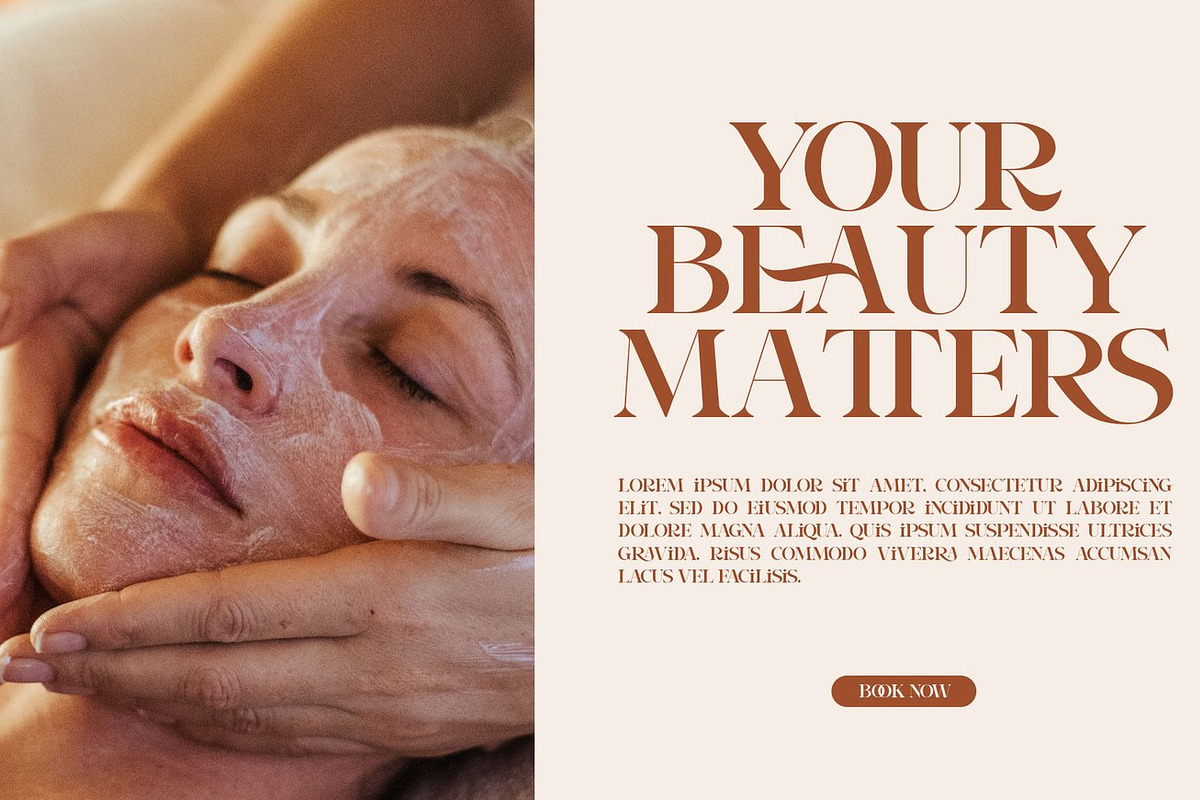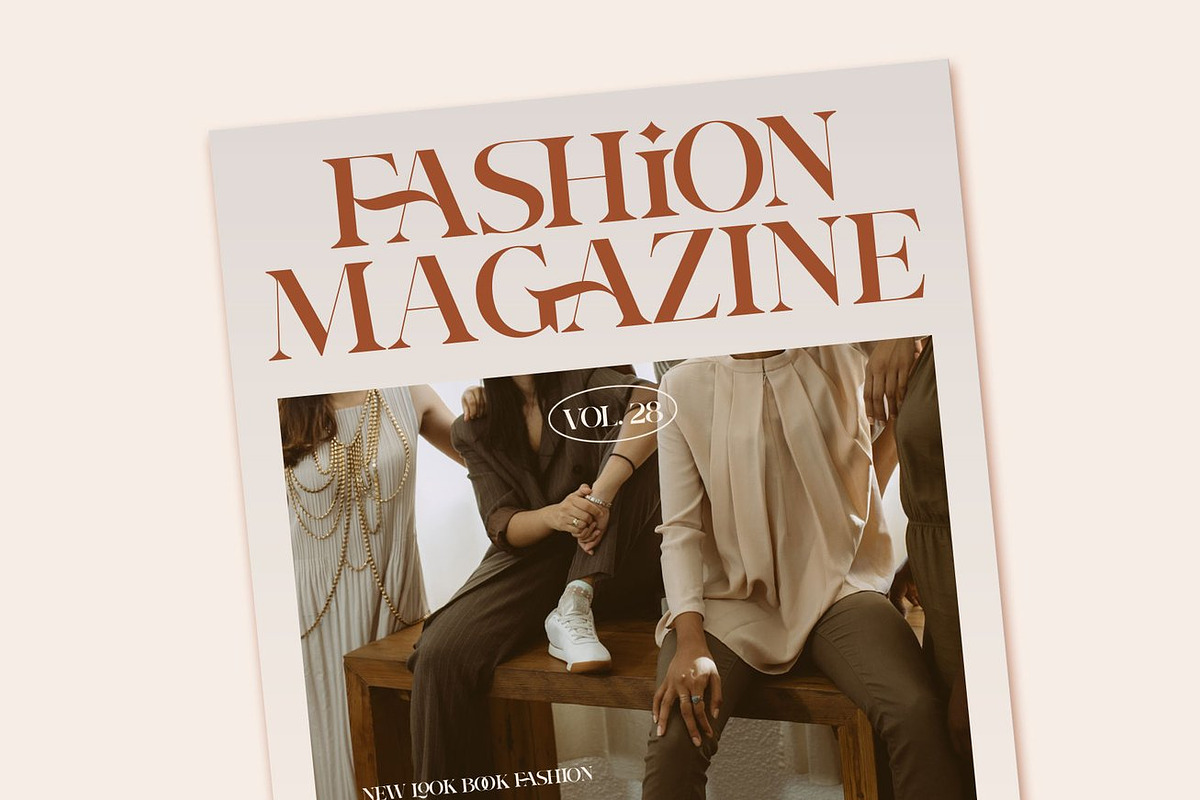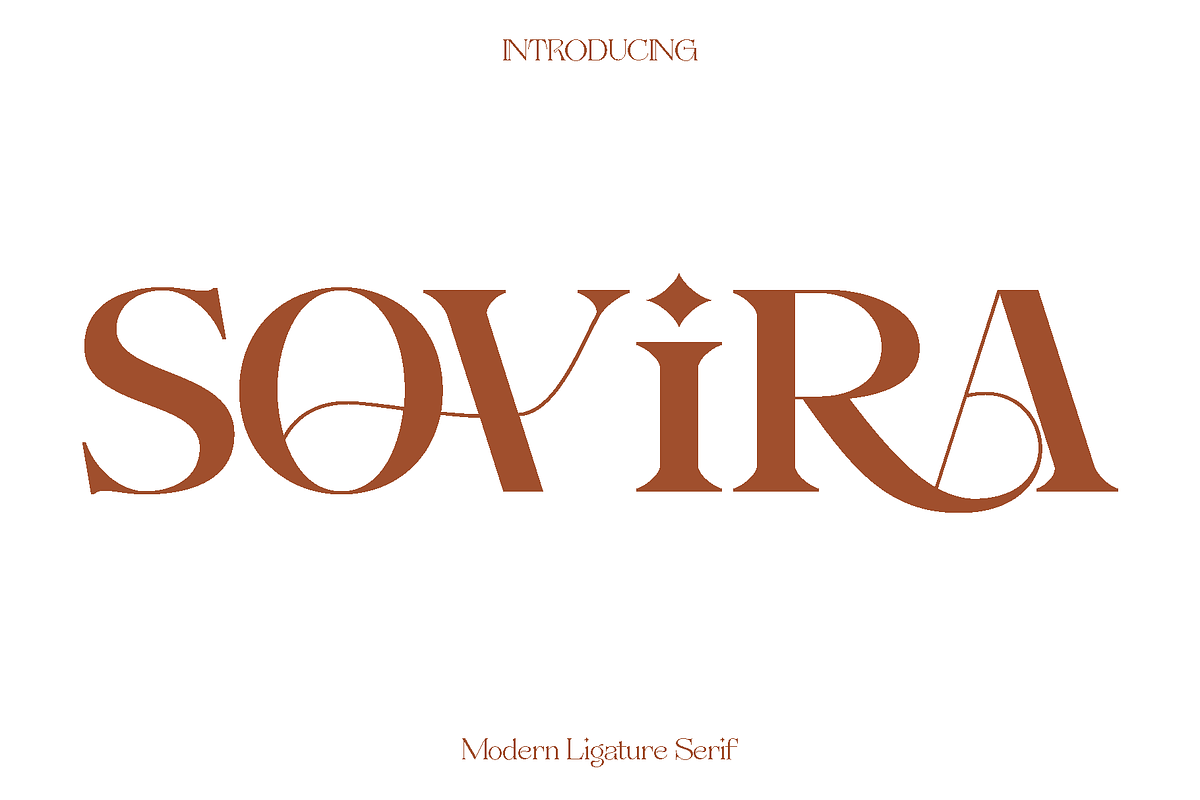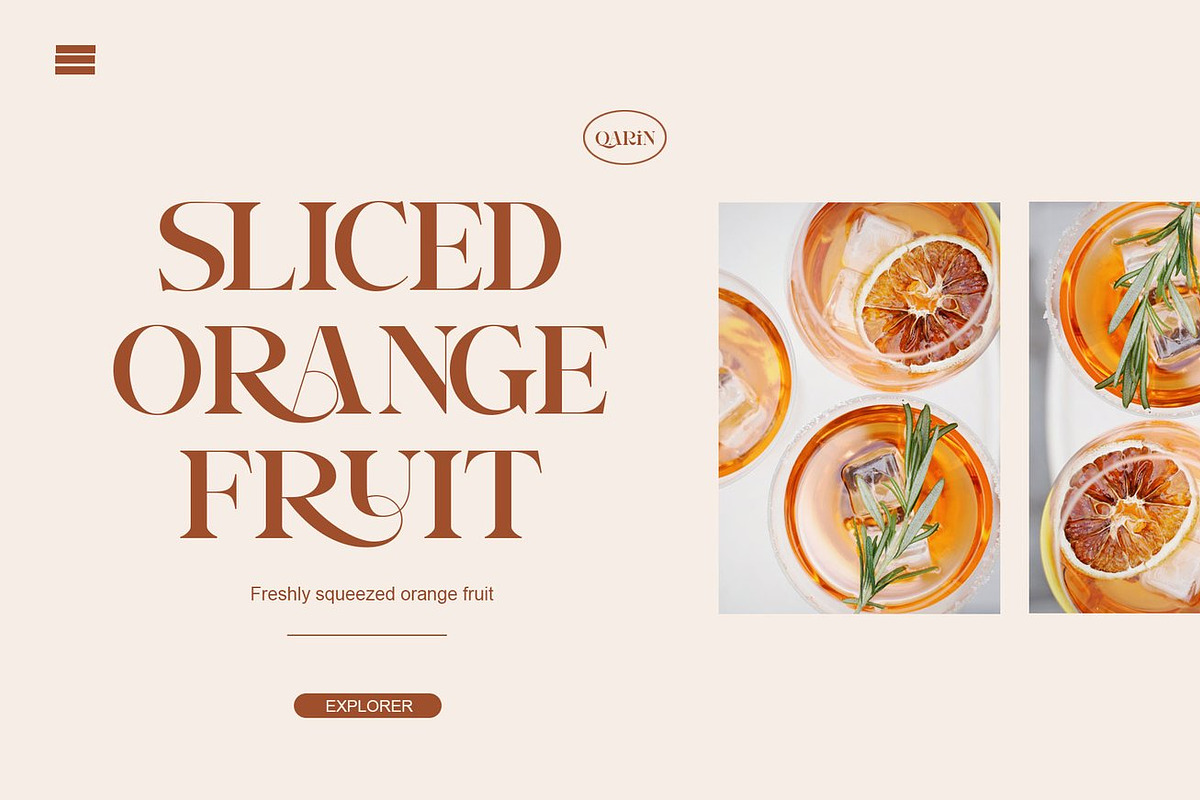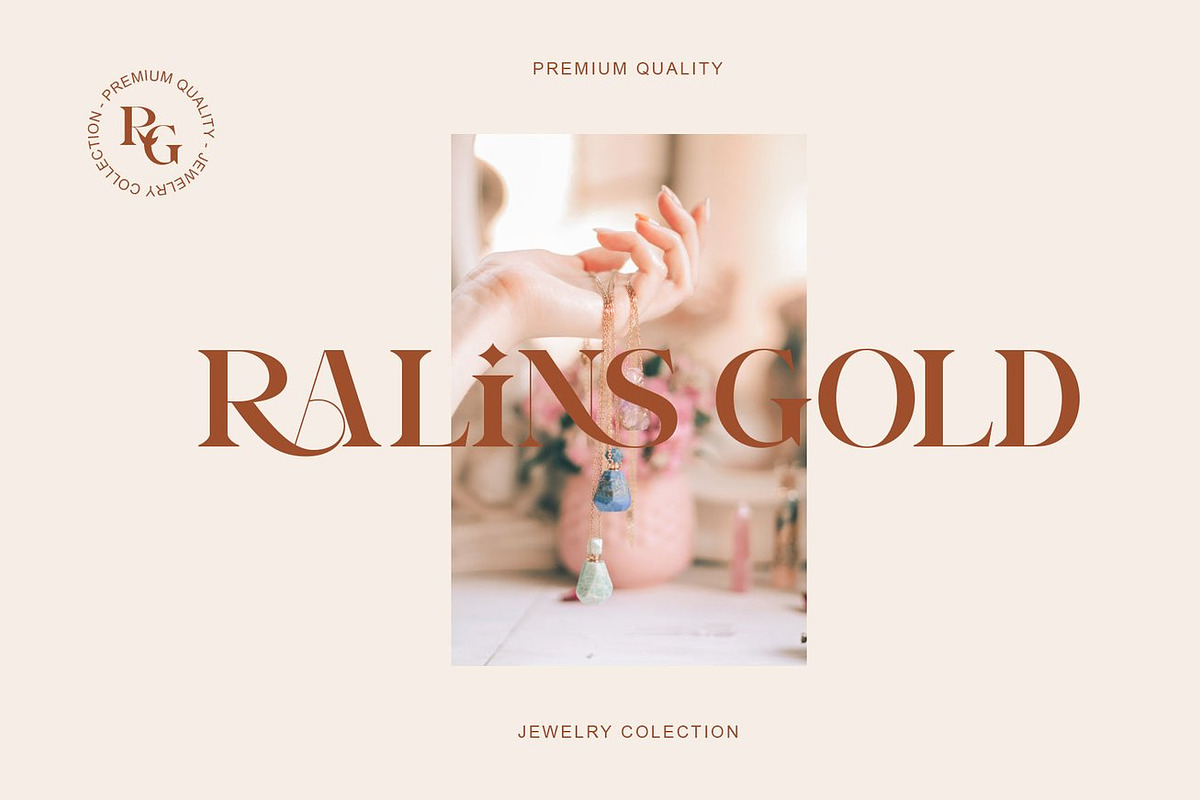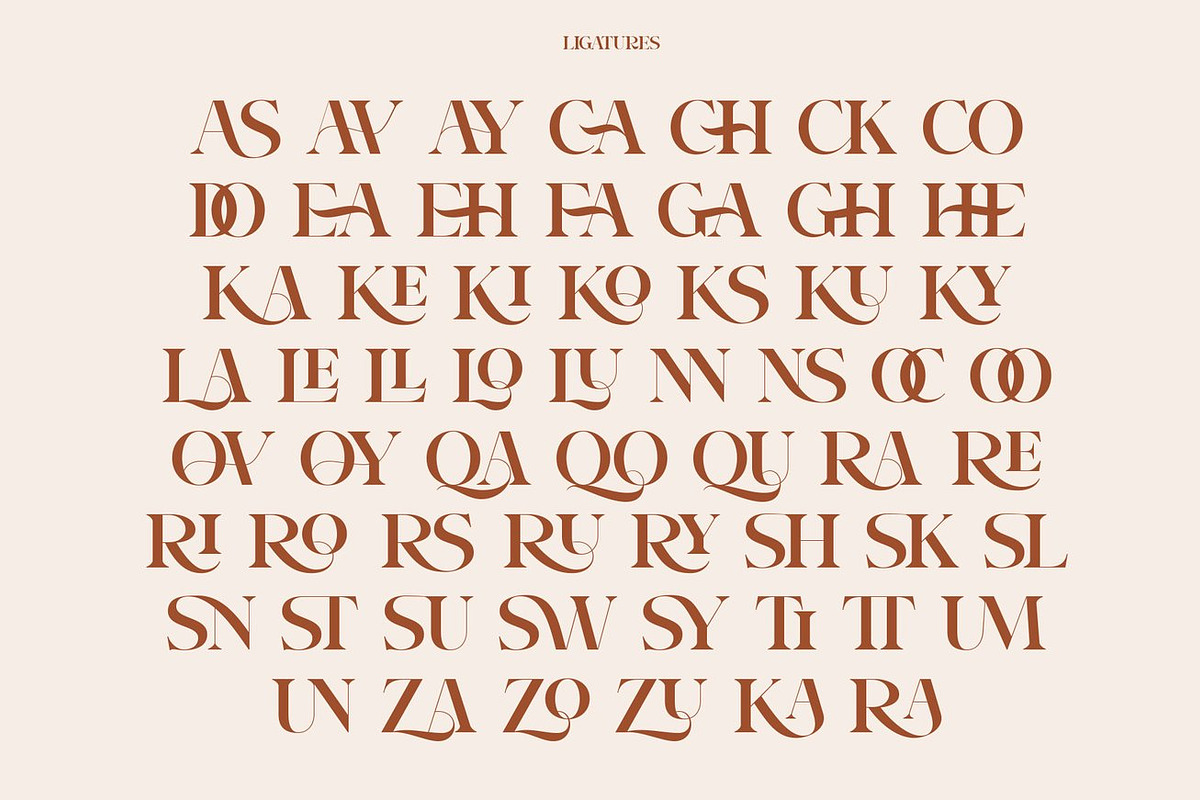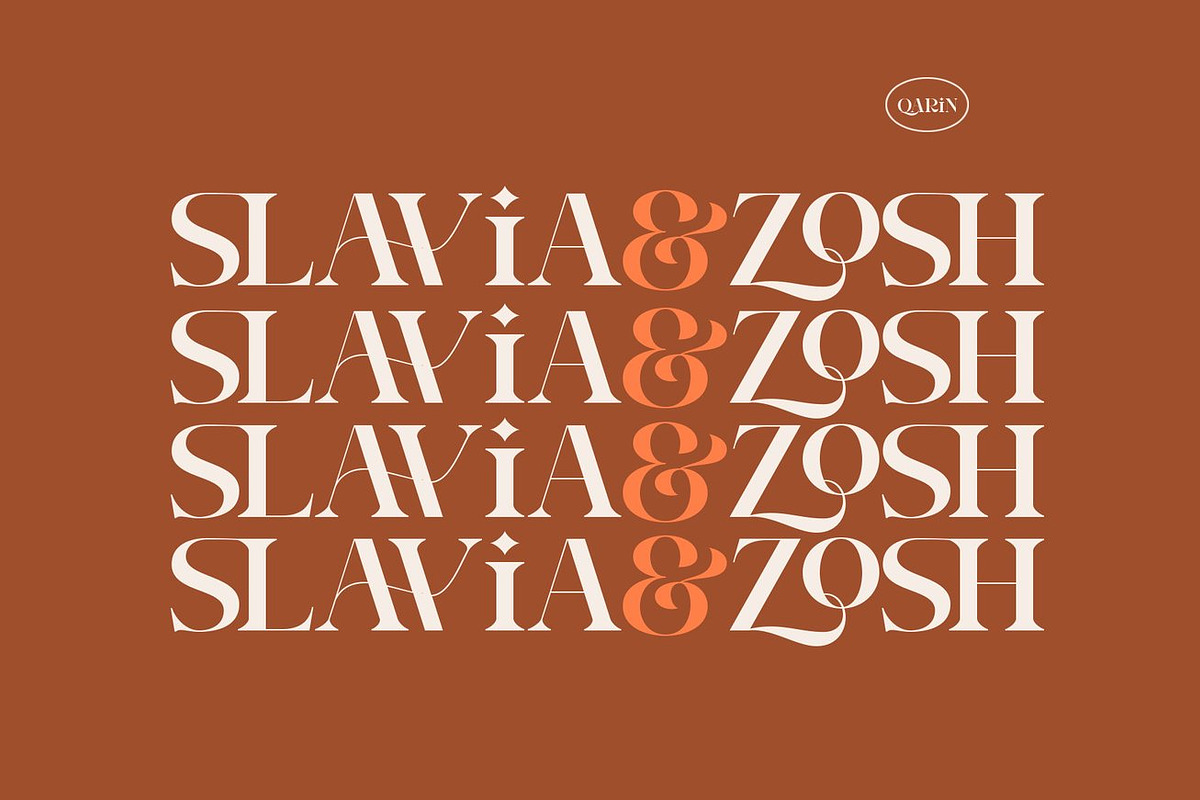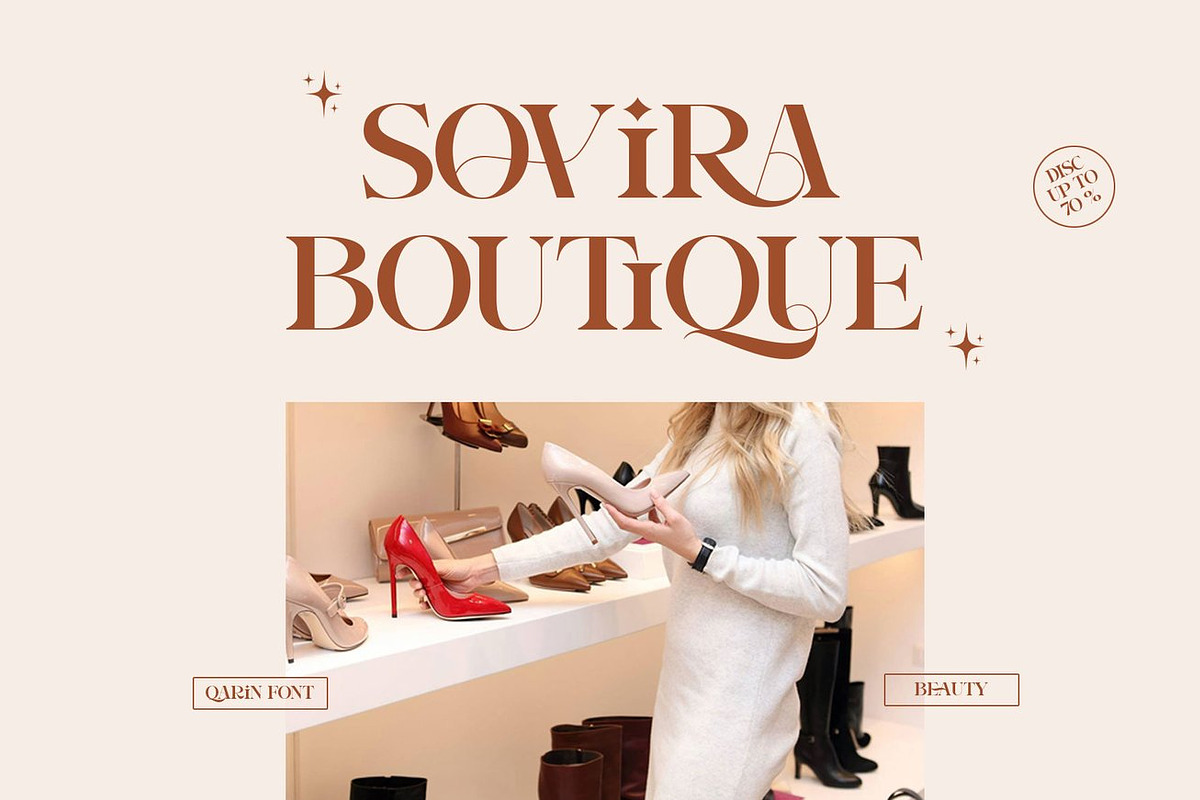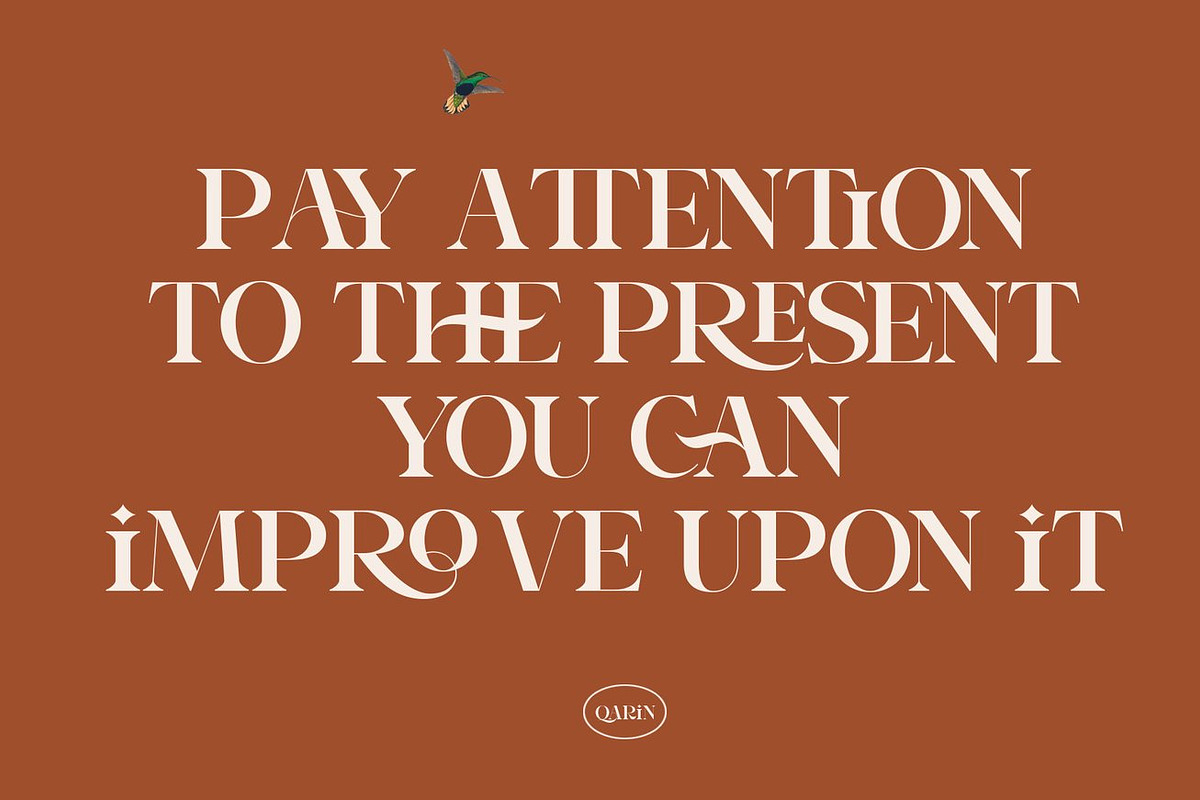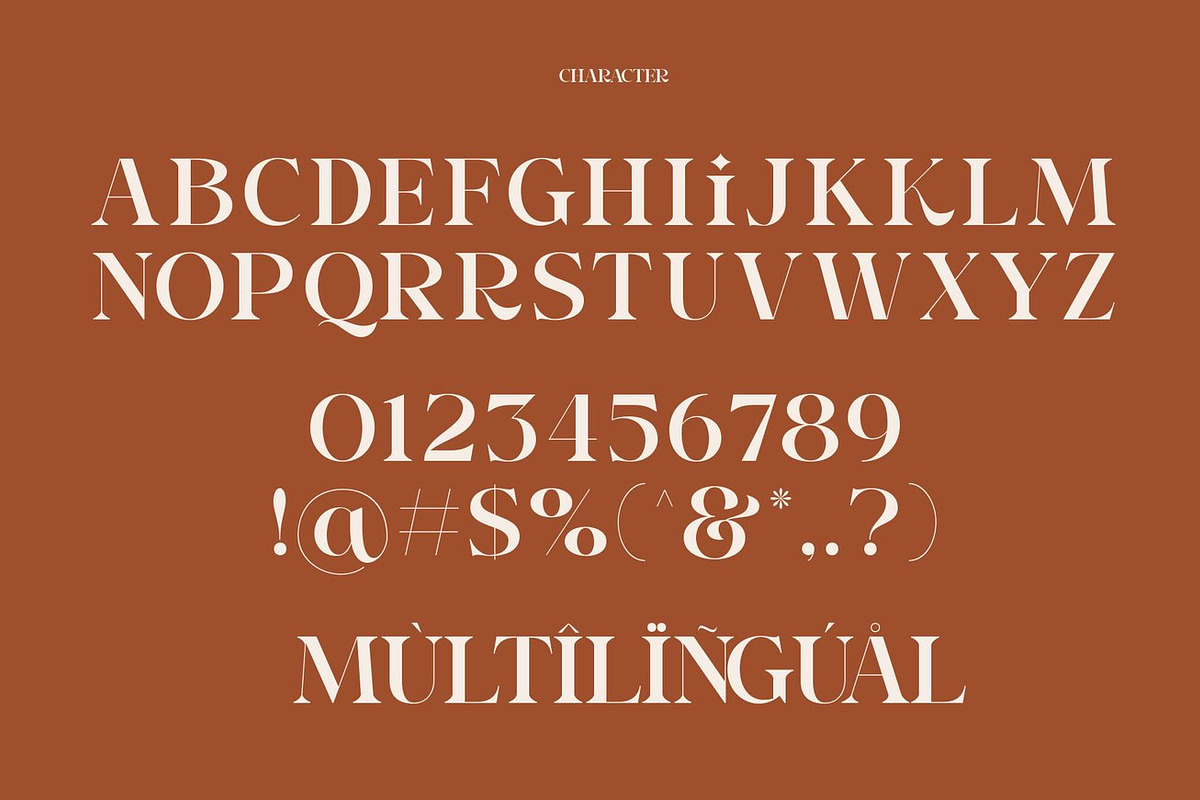
Sovira - Modern Ligature Serif
Sovira is a bold and elegant modern vintage font designed to bring sophistication and style to any design project. With its slanted version and versatile letterforms, Sovira combines the charm of vintage aesthetics with contemporary design sensibilities. Its strong presence makes it ideal for projects that need both impact and refinement, giving every word a confident and polished look.
Perfect for branding, logos, product packaging, magazine headers, and stylish overlays on photography, Sovira excels in both large display settings and subtle text applications. Its elegant curves and clean lines ensure readability while adding a distinctive flair that makes designs stand out. This font balances timeless vintage charm with modern practicality, allowing it to shine in creative projects across print and digital platforms.
Sovira brings a sense of luxury and versatility to your work. Designers can use it for bold headlines, sophisticated branding, artistic posters, and memorable promotional materials. Its slanted style adds movement and personality, elevating each project with energy and style. Sovira is ideal for creators who want to merge classic elegance with contemporary appeal.
Sovira Bold Elegant Modern Vintage Font Features:
• Uppercase and lowercase letters
• Numerals and functional characters
• Multilingual support
• Stylistic alternates for added creativity
This font is perfect for designers seeking a versatile, stylish, and impactful typeface that enhances every creative endeavor.